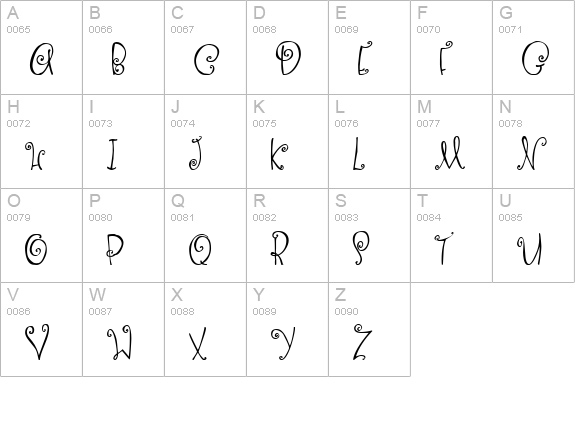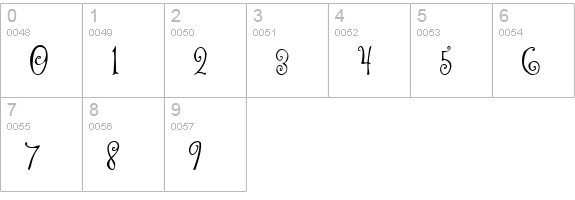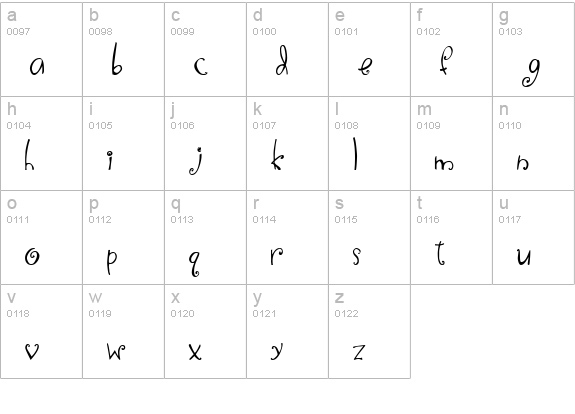
2Peas DW Curls and Swirls Font Details
2Peas DW Curls and Swirls font is a whimsical and playful typeface that will add a touch of fun to any design project. With its intricate curls and swirls, this font exudes a sense of creativity and charm. Whether you're creating invitations, greeting cards, or any other creative project, 2Peas DW Curls and Swirls font is sure to make a statement. The best part? This delightful font is available for free download at FontsMarket.com. Simply head over to the website and add this font to your collection without spending a dime. Embrace the creativity and flair that 2Peas DW Curls and Swirls font has to offer, and watch your designs come to life with its unique charm.